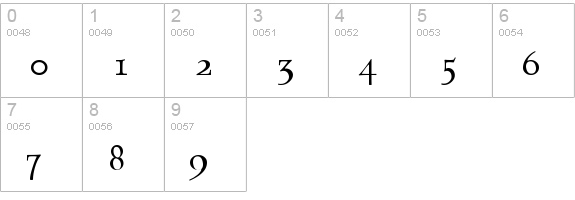
TaskBook Font Details
Introducing TaskBook font - a versatile and modern typeface that is perfect for a wide range of design projects. With its sleek and elegant appearance, TaskBook font exudes professionalism and sophistication. Whether you're working on a website, logo, or branding materials, this font will elevate your design to the next level. What's even better is that TaskBook font is completely free to use! You can easily download it from FontsMarket.com and start incorporating it into your projects right away. Say goodbye to expensive font licenses and enjoy the freedom to create stunning designs without any restrictions. TaskBook font is the perfect choice for designers looking for a high-quality typeface that won't break the bank. Download it today and see the difference it can make in your work!